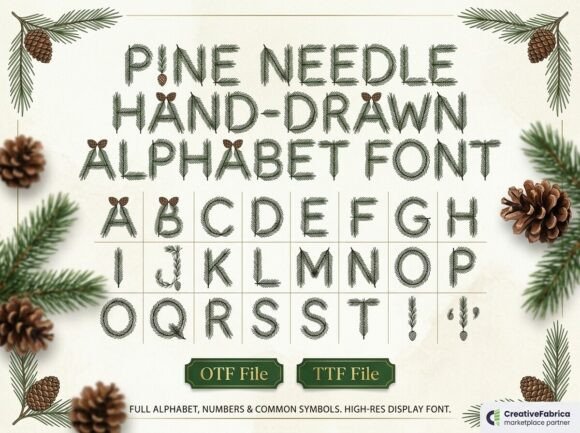
Introduction to Pine Needle Font
Bring the scent of the evergreens to your next design with the Pine Needle Alphabet Font, a meticulously crafted display typeface that breathes life into the spirit of the forest.
| ๐ค Author | lawboomer |
Each letterform is intricately illustrated to mimic real pine branches, featuring delicate needle textures and charming pinecone accents that serve as punctuation and decorative flourishes With its authentic โwinter woodlandโ aesthetic, the Pine Needle Alphabet Font is the premier choice for holiday branding, rustic cabin decor, winter festival stationery, and eco-friendly packaging.
Key Features of Pine Needle Font
Why Choose Pine Needle Font?